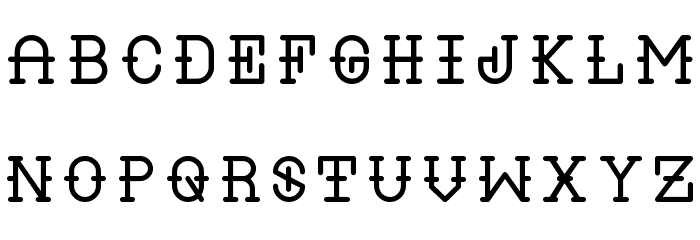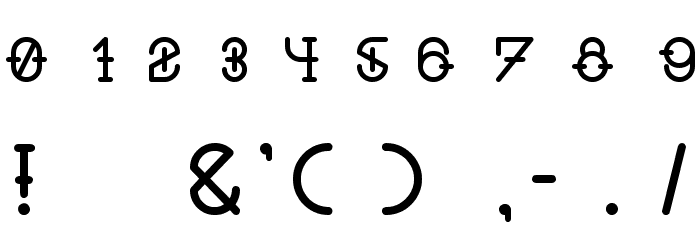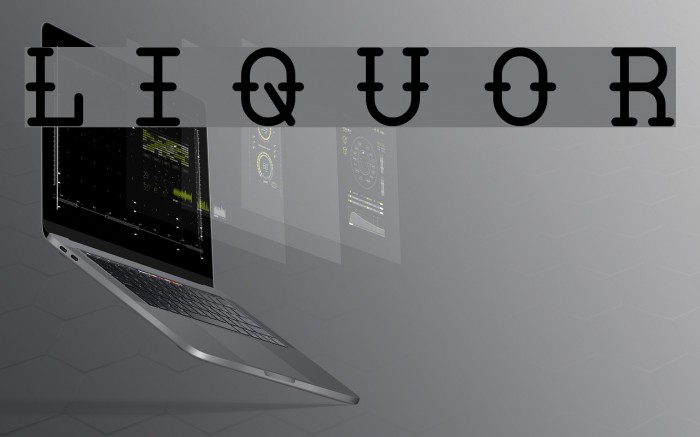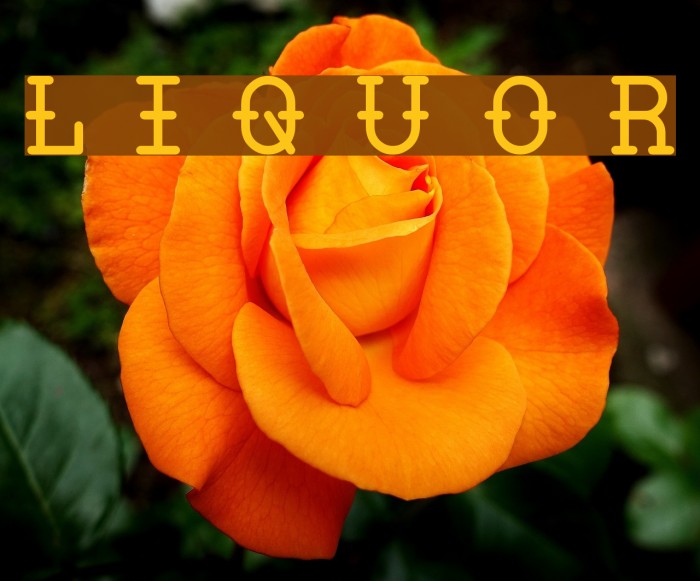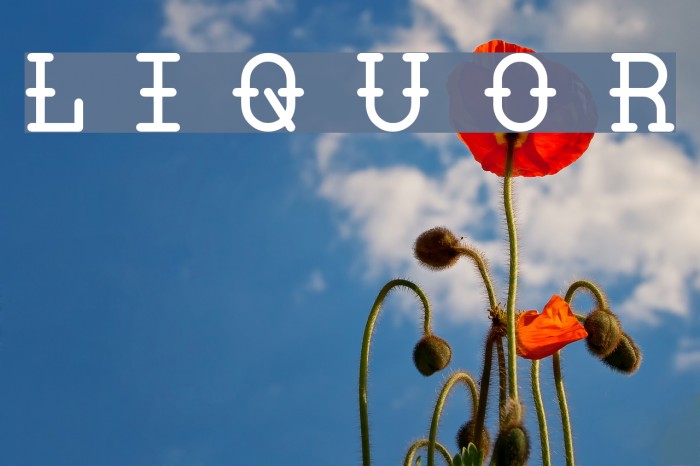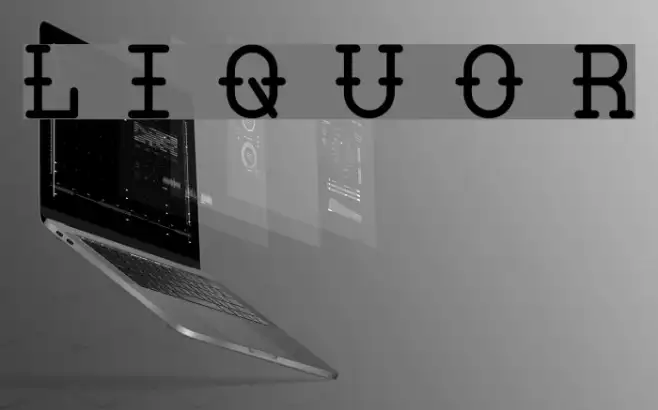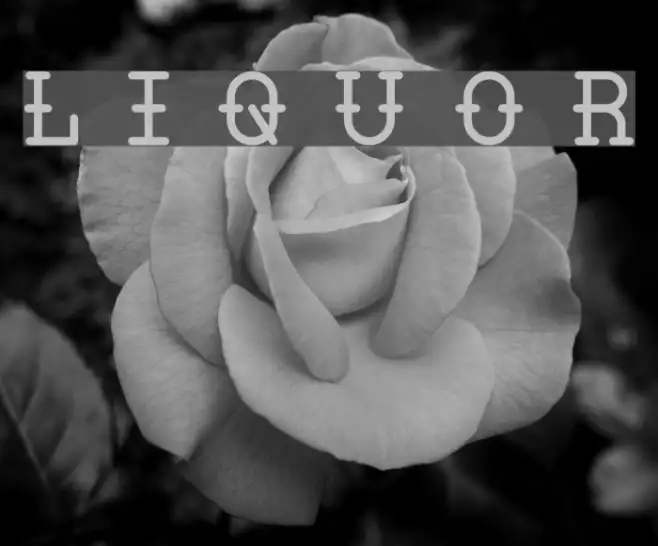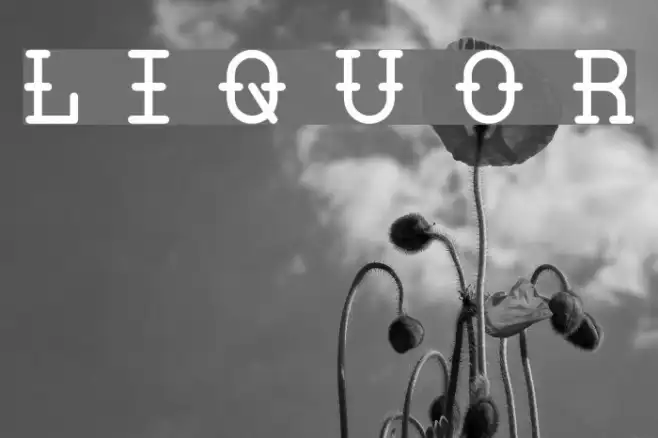
LIQUOR Font
This font features a bold and distinctive style with a modern twist on classic serif elements. The characters are characterized by strong vertical lines and rounded edges, giving it a unique and eye-catching appearance. The uppercase letters have a consistent height, while the lowercase letters maintain a balanced proportion. The numerals are clear and easily readable, with a slight emphasis on the curves. Special characters are designed to complement the overall aesthetic, maintaining the bold and rounded theme. The font's design is both functional and decorative, making it suitable for a variety of creative applications.
A bold, modern serif font with rounded edges and strong vertical lines.
- Proposed Projects: Ideal for branding, poster design, and editorial layouts where a strong visual impact is desired.